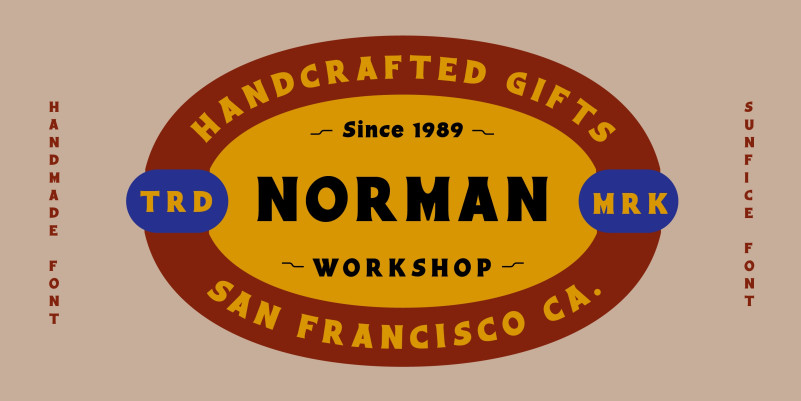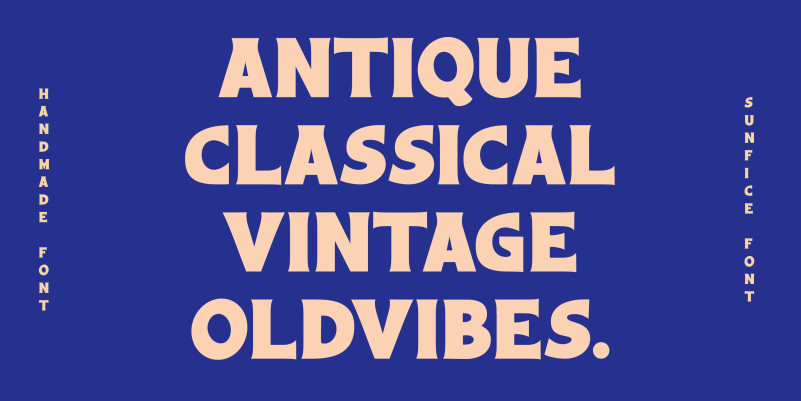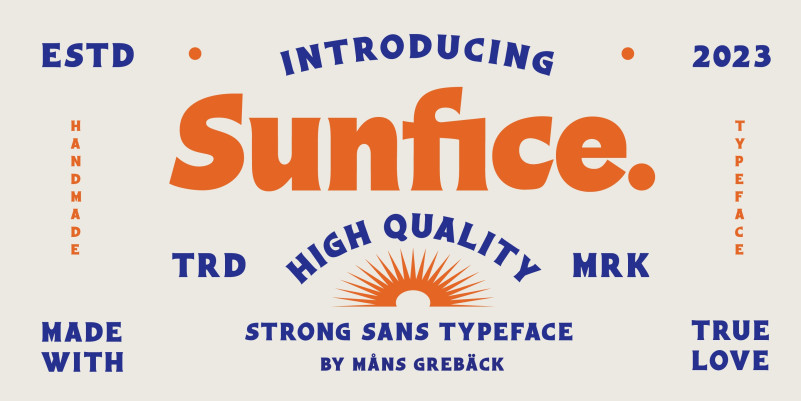
Sunfice Font
Sunfice Serif Font, This font is perfect for stickers, retro projects, craft projects, shirts, svg designs, procreate designs, branding, blogs, logos, invitations and more!